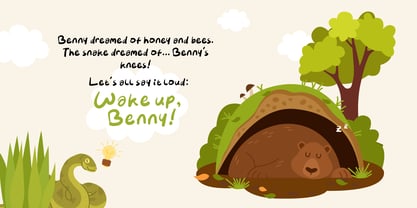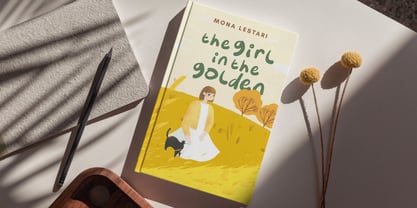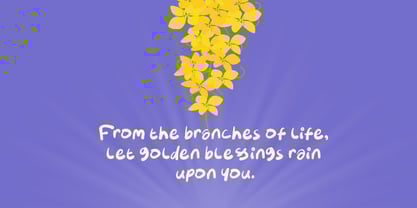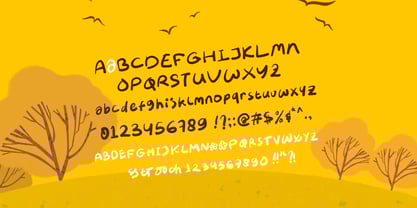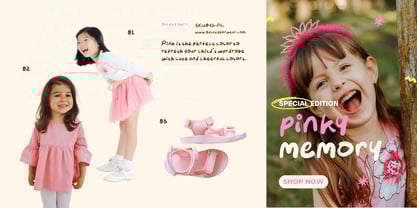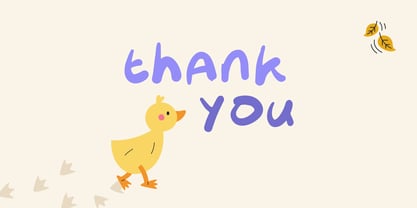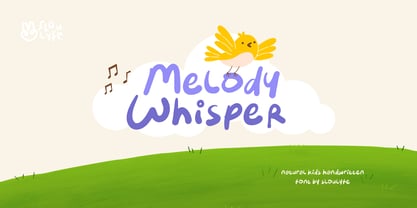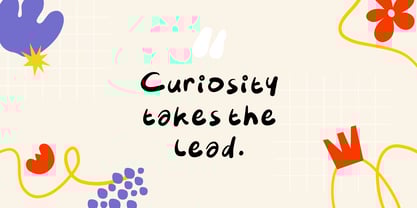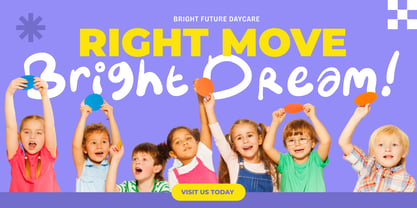
Melody Whisper
by Sloulyfe Studio
The Melody Whisper Font Family was designed by Amelia Dian Isnaini and published by Sloulyfe Studio. Melody Whisper contains 1 styles. More about this family
Melody Whisper is a sweet and playful handwritten font that captures the carefree spirit of childhood. With its soft, rounded strokes and natural hand-drawn style, it feels friendly, fun, and full of charm—perfect for children’s books, educational projects, packaging, posters, or any design that needs a lighthearted, joyful vibe. This font brings a touch of innocence and creativity, making your designs sing with warmth and personality.
Designers: Amelia Dian Isnaini
Foundry: Sloulyfe Studio